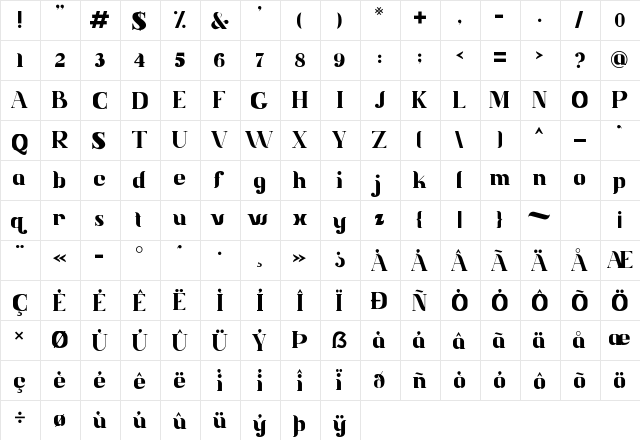
Jetfast Regular
Design Context for Jetfast Typeface
Jetfast offers clean, dependable letterforms without strong stylistic allegiance, making it a practical choice for designers who need flexibility.
Pro Tip: Pair Jetfast with a font of contrasting weight or personality to build a more expressive typographic hierarchy.